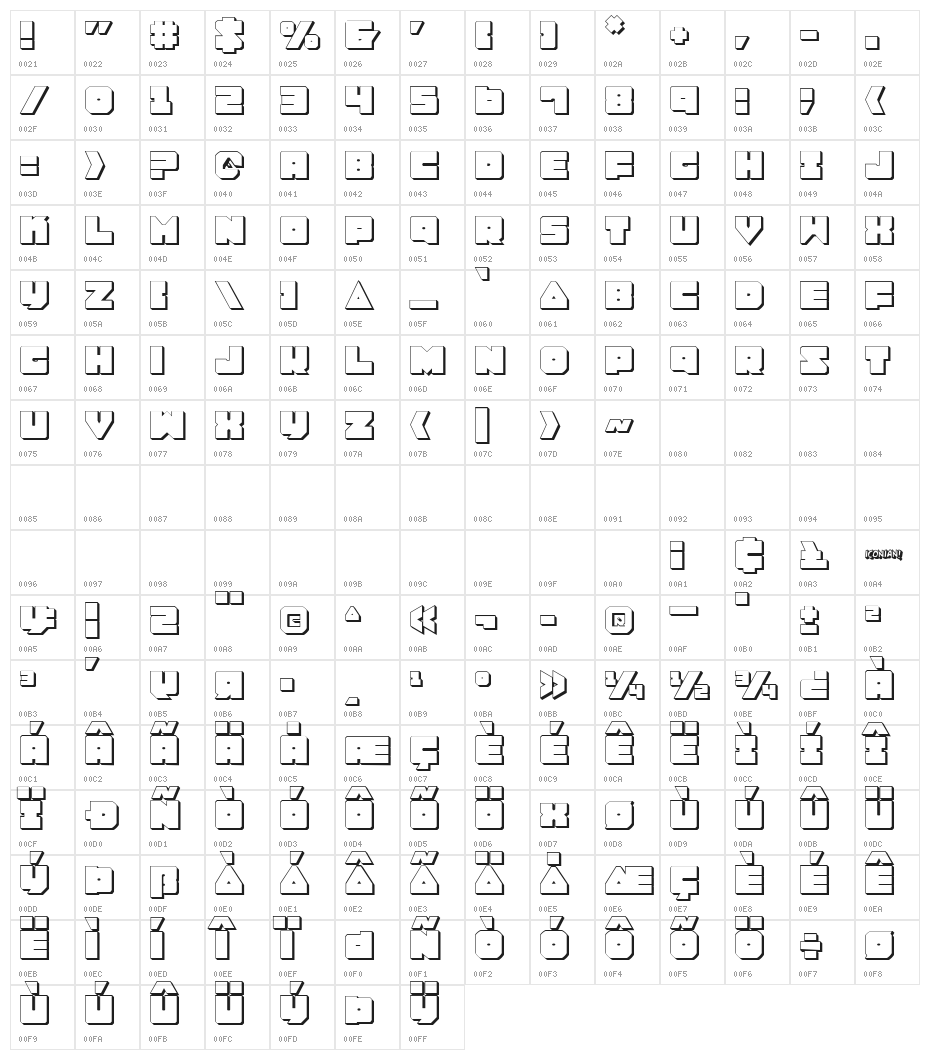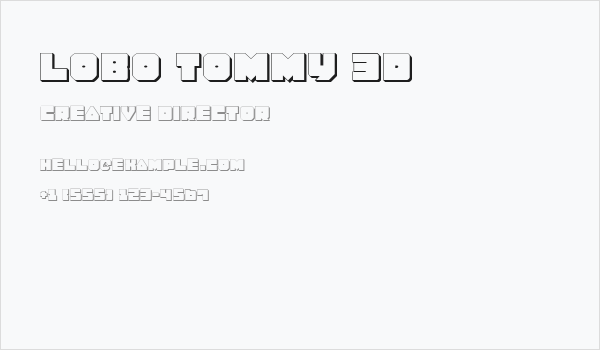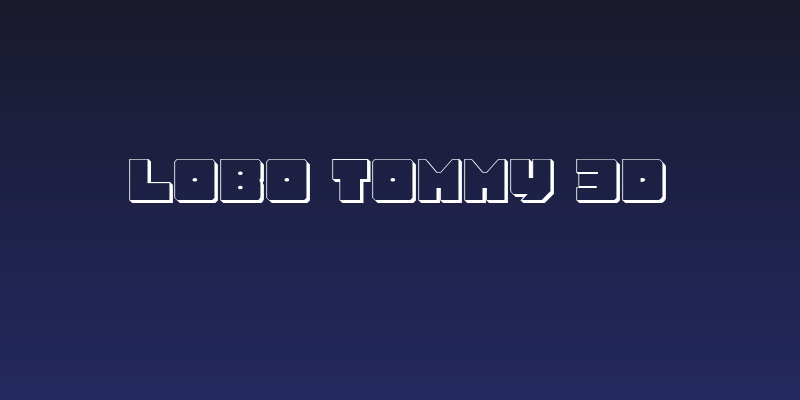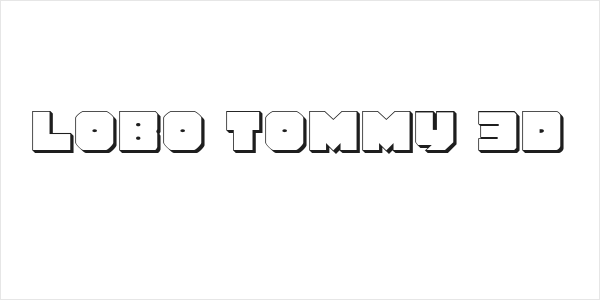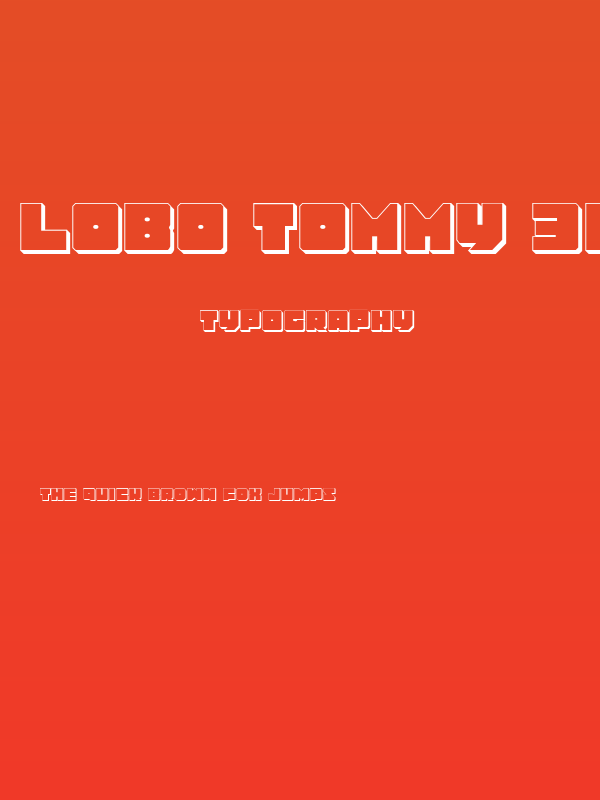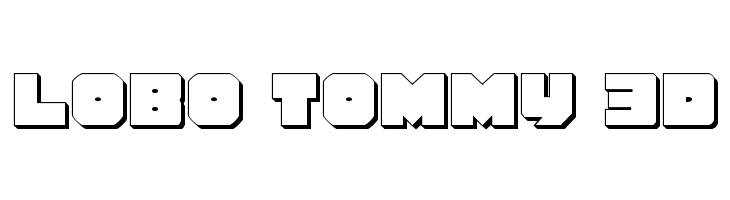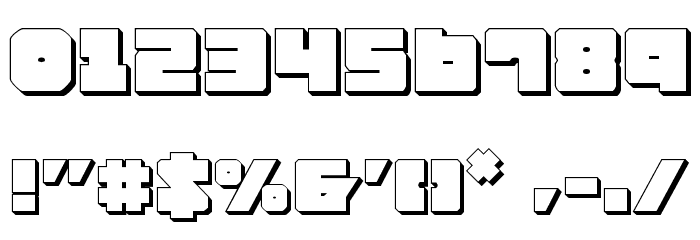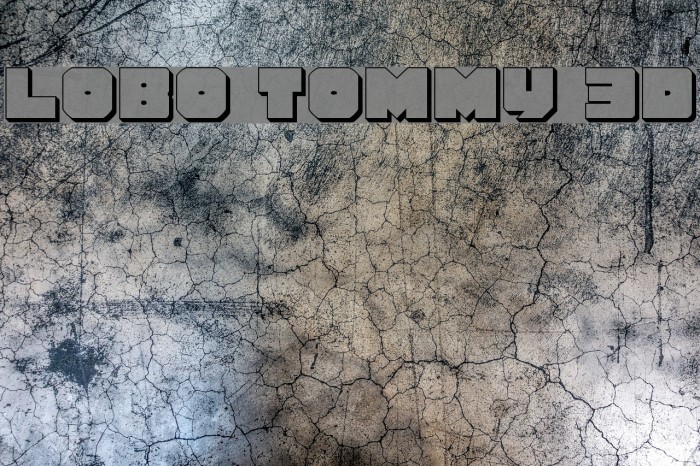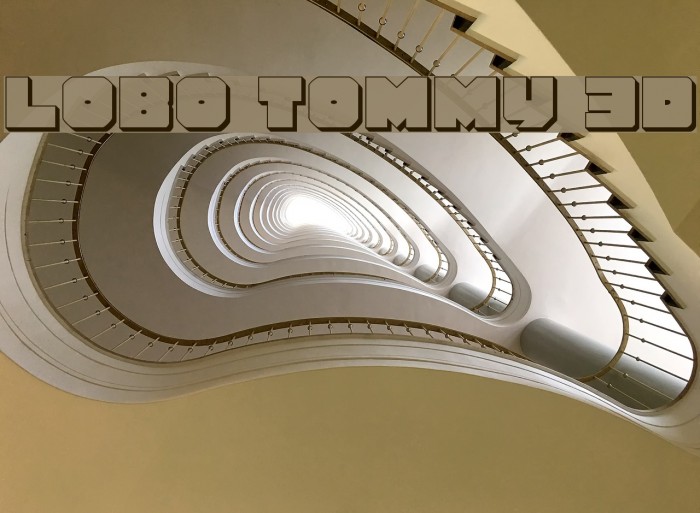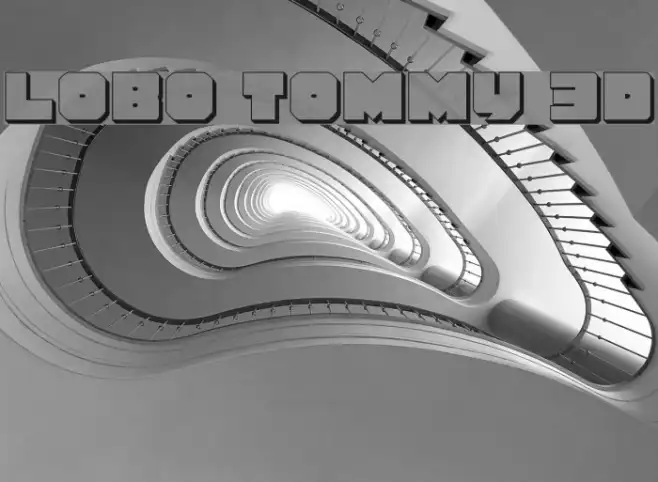
Lobo Tommy 3D Font
Lobo Tommy 3D Description
This font features a bold, three-dimensional style with a blocky and geometric appearance. The letters are outlined with a thick black border, giving them a strong and impactful look. The 3D effect is achieved through the use of shadows and highlights, which add depth and dimension to each character. The font maintains a consistent height and width across all characters, providing a uniform and cohesive appearance. The numerals and special characters follow the same design principles, ensuring a seamless integration with the alphabet. This font is ideal for creating eye-catching headlines and titles that demand attention.
| Proposed Projects | Ideal for video game titles, posters, logos, and any project requiring a bold, attention-grabbing typeface. |